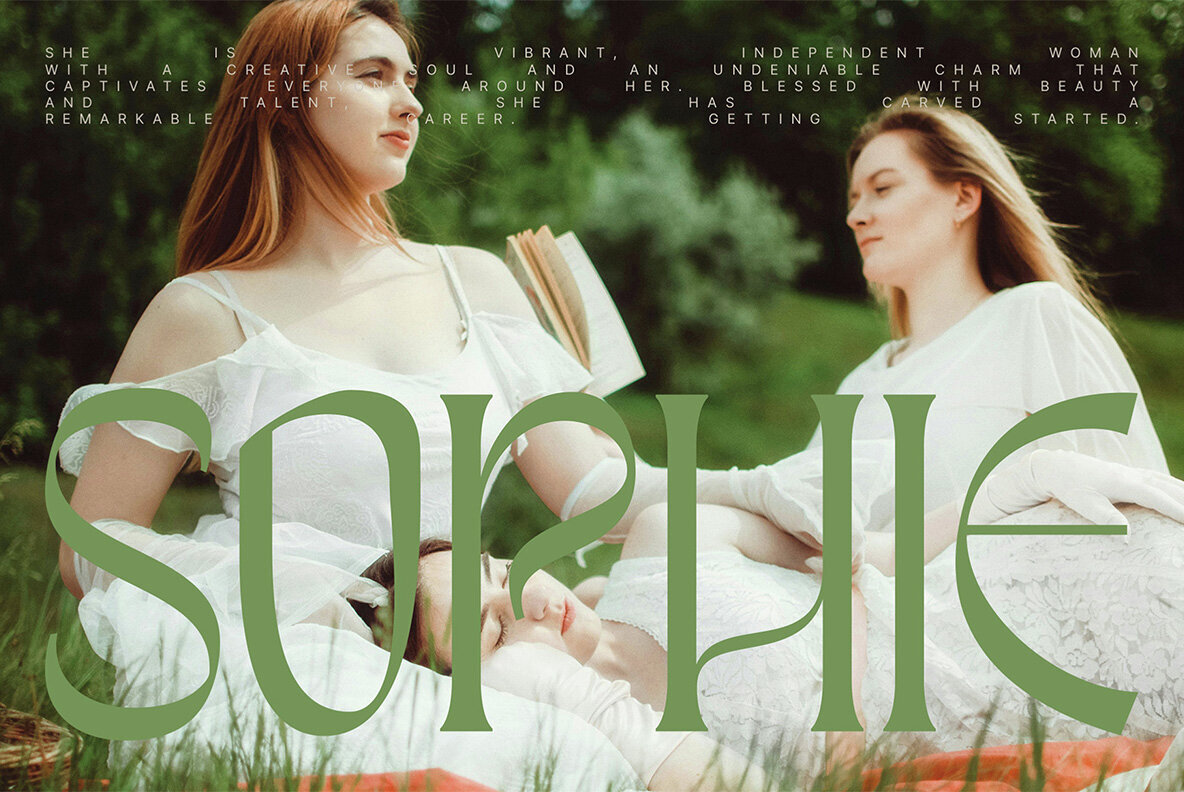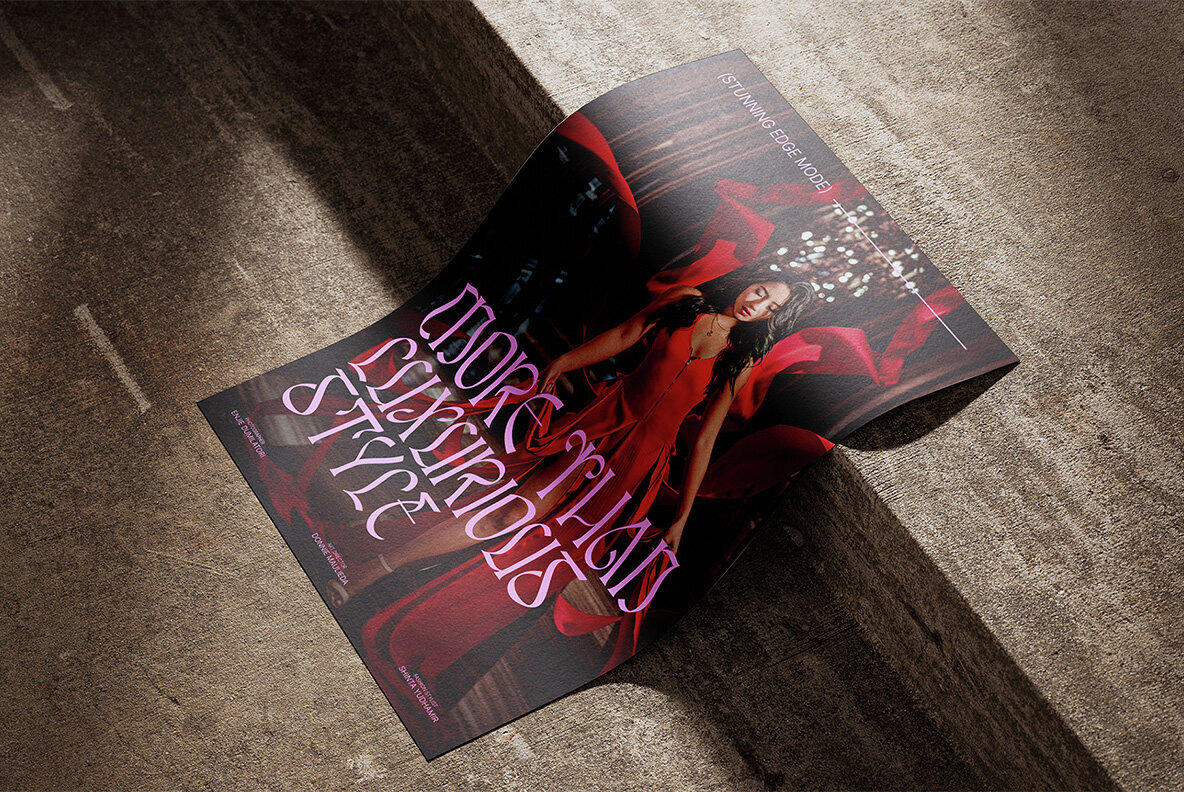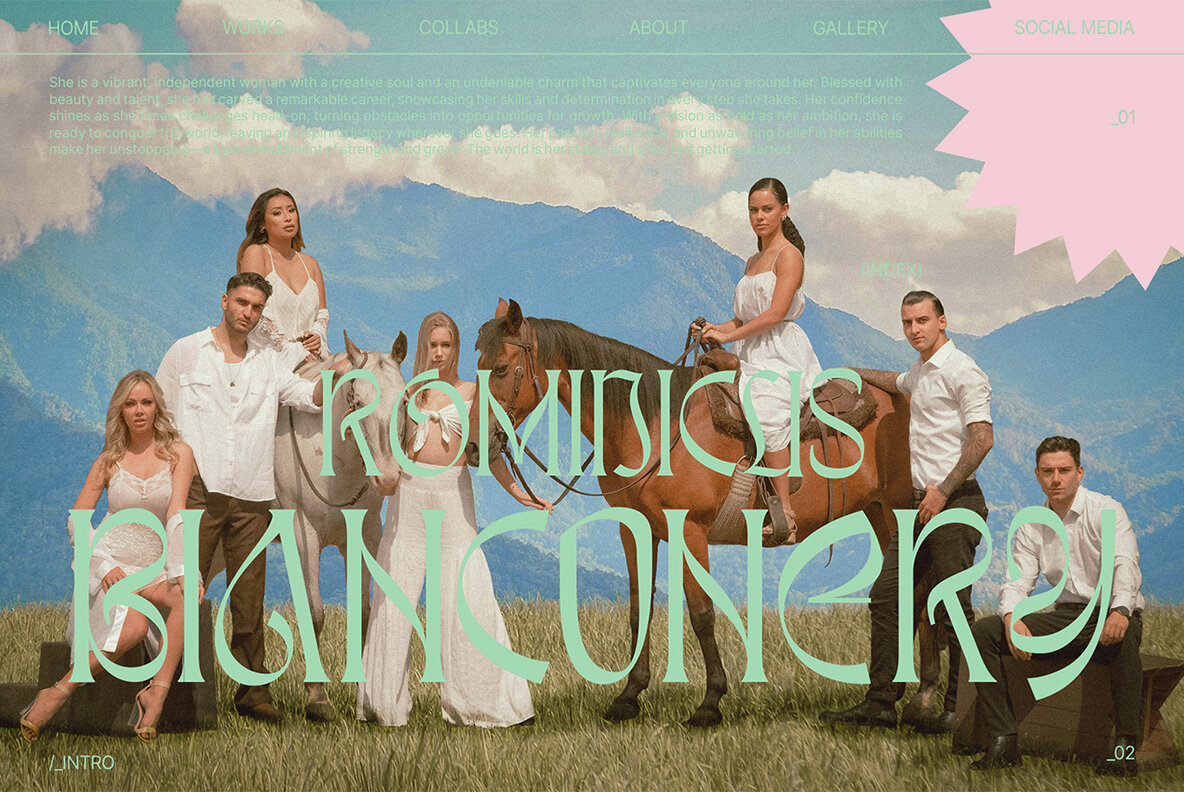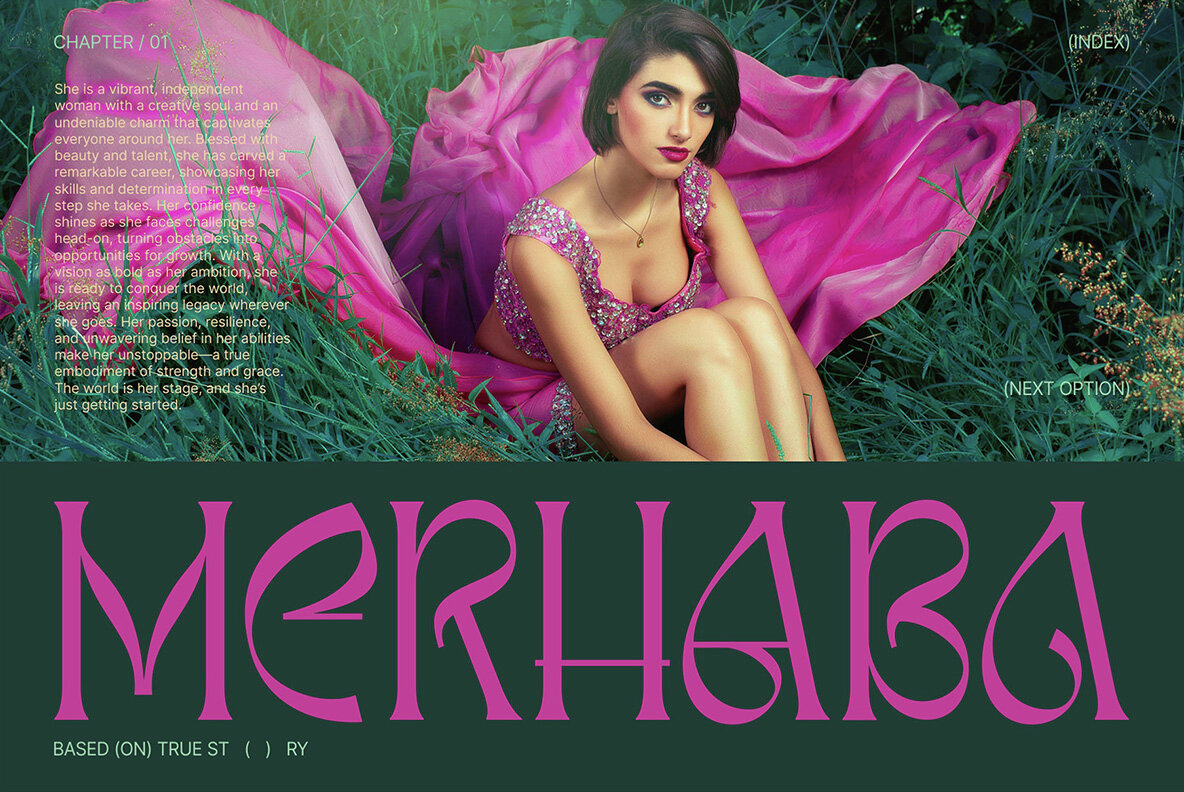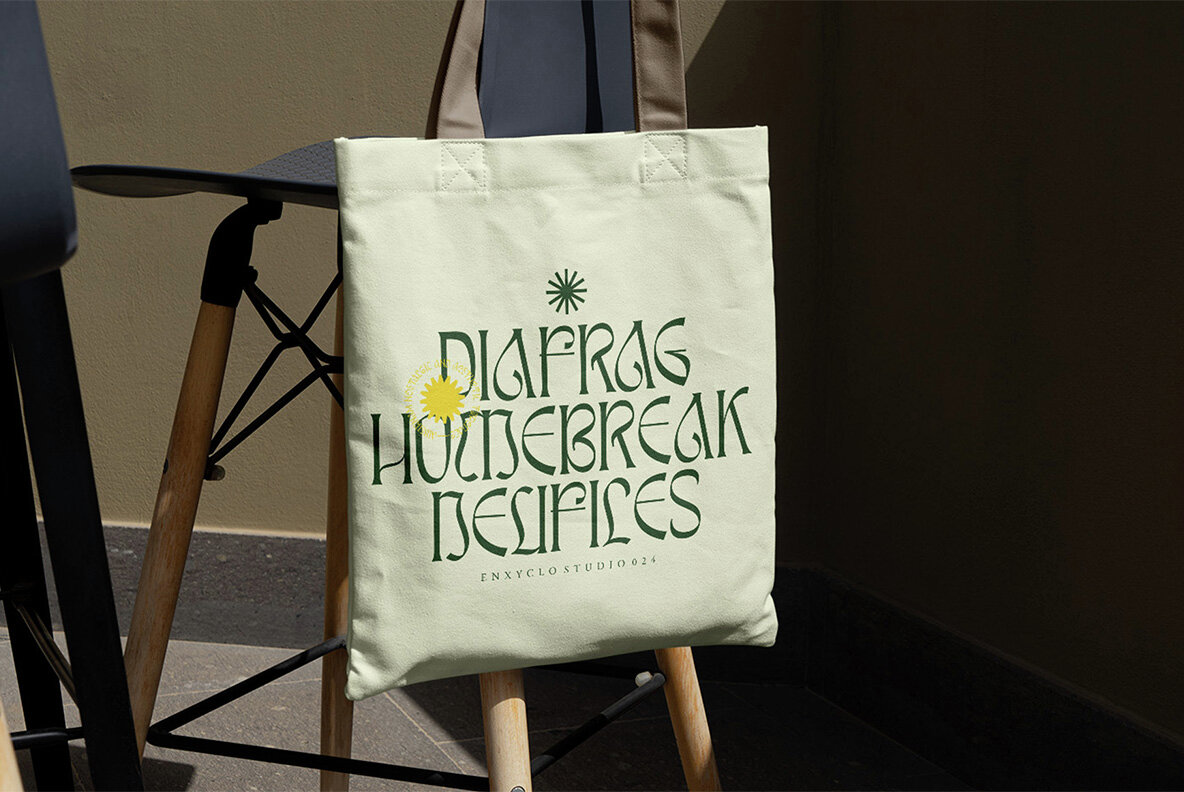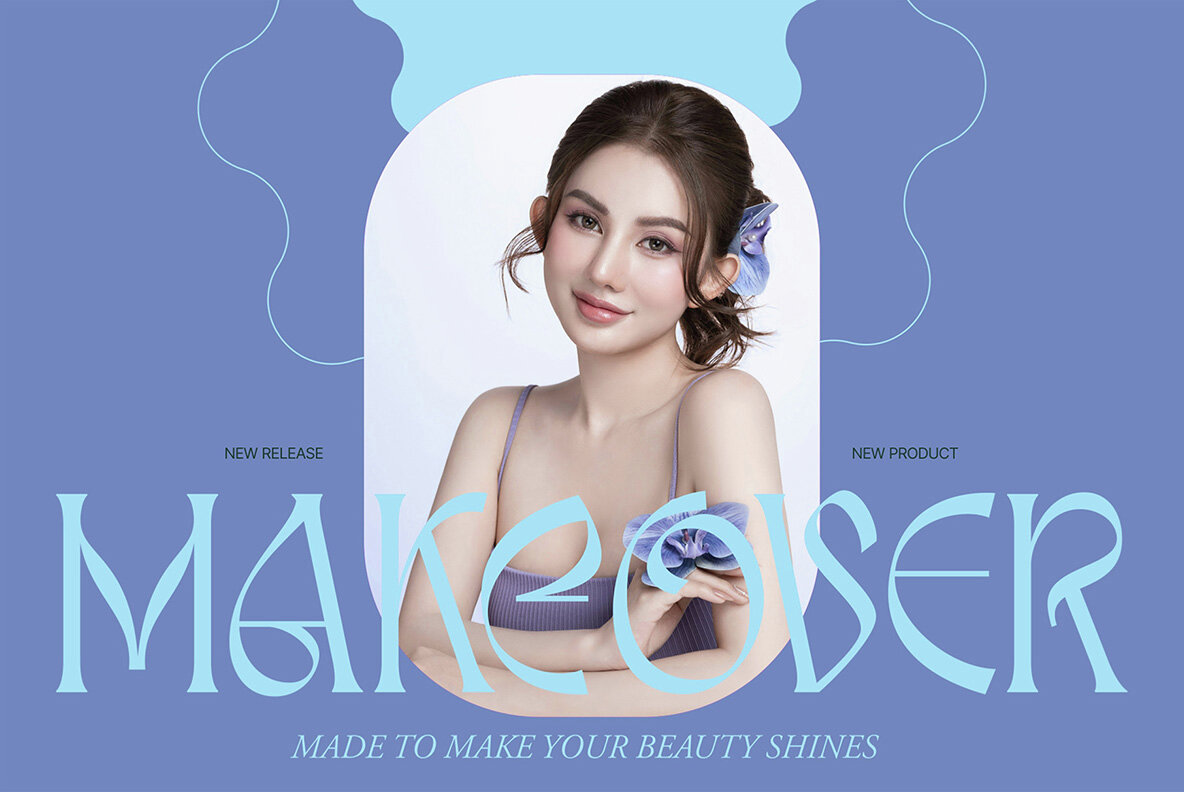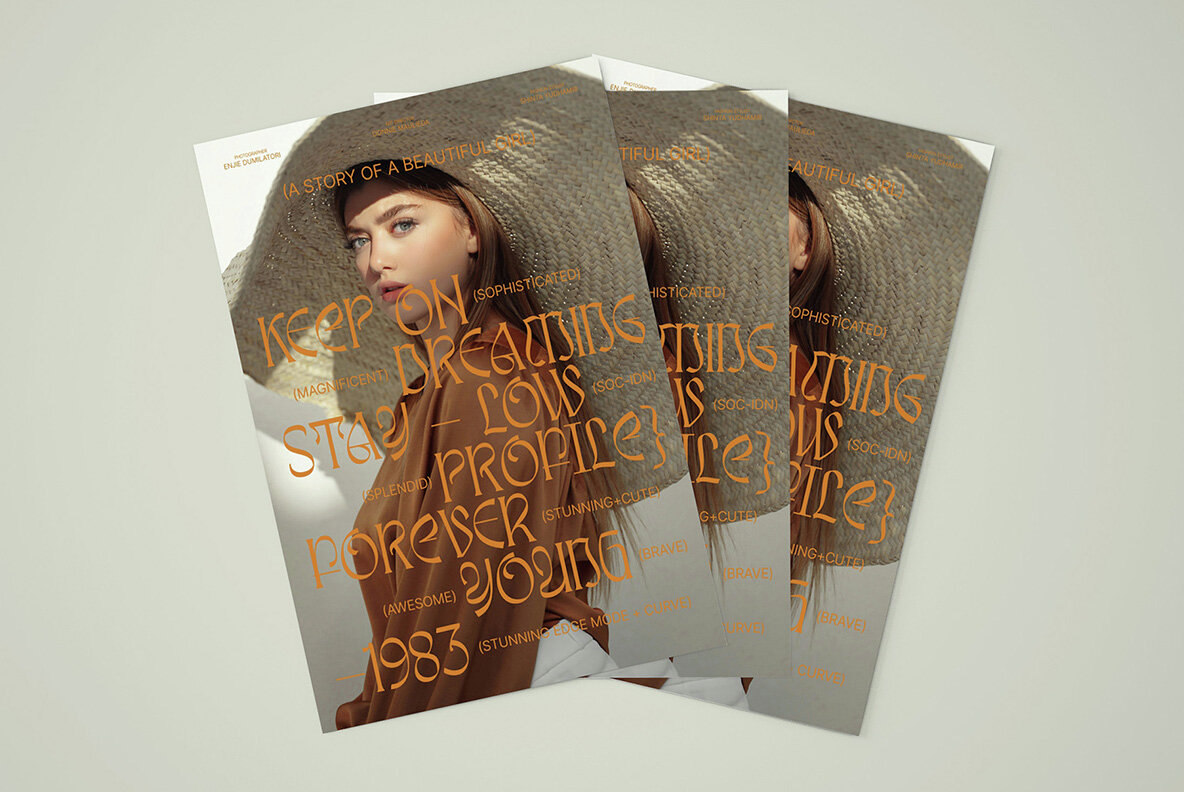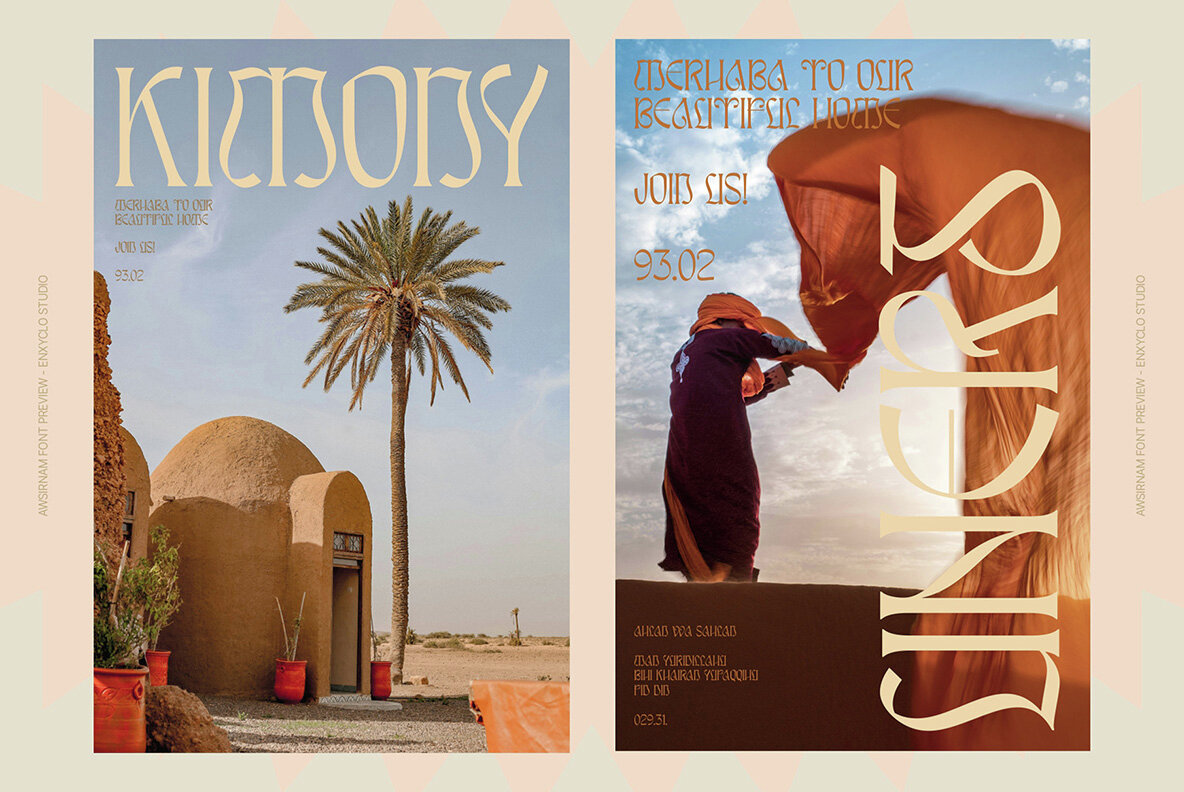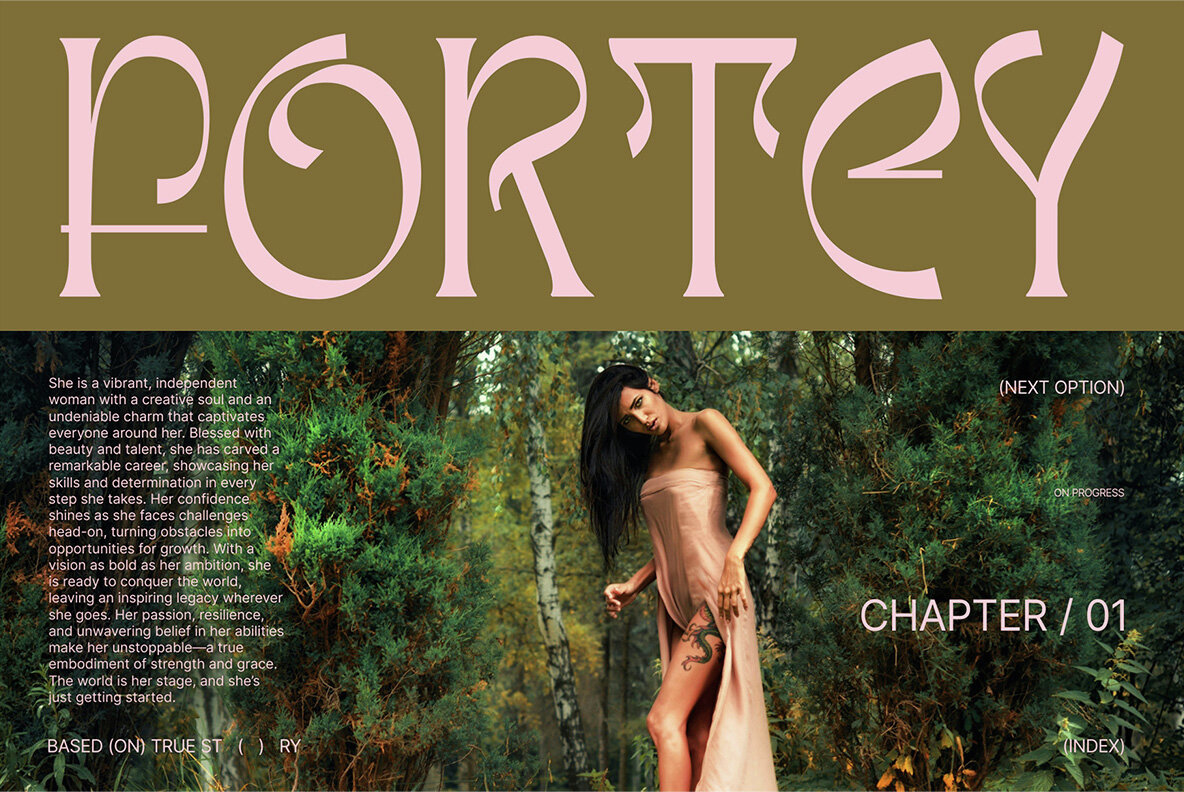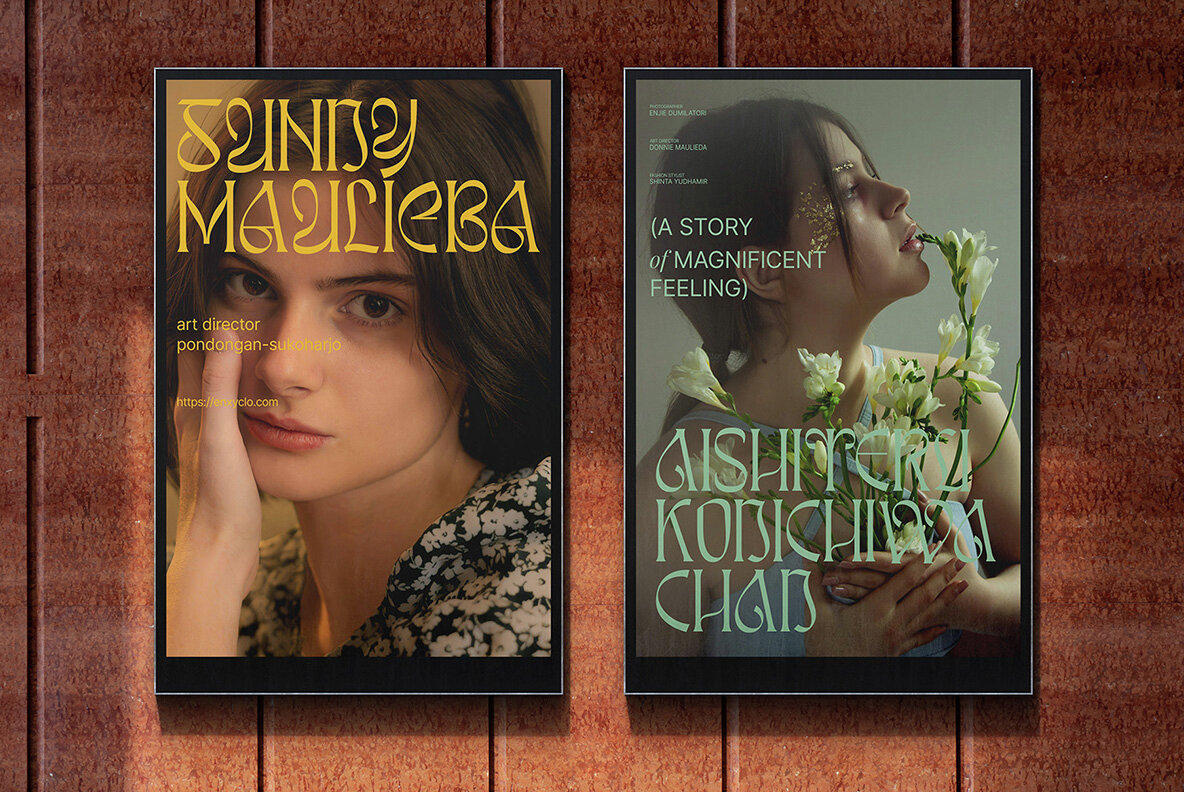
Awsirnam Font
Awsirnam Regular
Awsirnam is a contemporary all-caps serif display font that expertly merges bold, flowing curves with sharp, angular accents. The font strikes a unique balance between futuristic elements and nostalgic touches, making it perfect for various creative projects. Its elegant curves and distinctive variations create a classic yet modern aesthetic, ideal for headlines, digital ads, magazines, websites, posters, branding, and logos. Designed to be impactful at large sizes, Awsirnam retains its compelling appearance even in smaller point sizes.
This typeface offers an impressive array of features, including 258 unique glyphs, alternate characters, uppercase and lowercase options, as well as numerals, punctuation, and symbols. With multilingual support, Awsirnam ensures that your designs can reach a global audience. Incorporating this font into your collection adds significant value, providing versatility and a standout presence in any project.